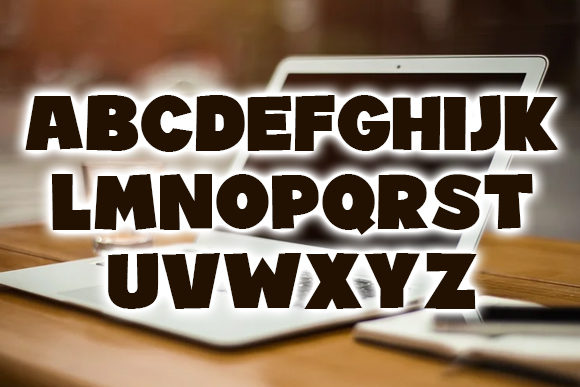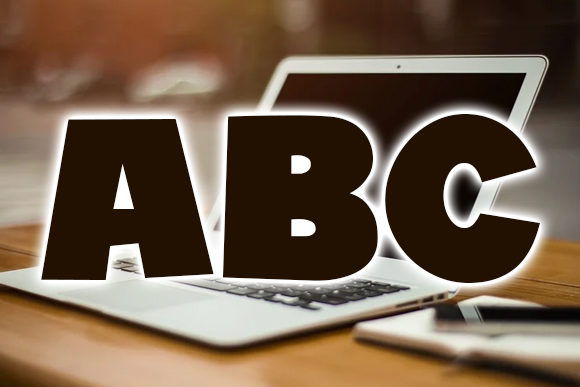
Introduction to Reset Font
Reset is a bold and simple display font.
Add this chunky lettered font to your designs and notice how it makes them come alive .
Key Features of Reset Font
Why Choose Reset Font?
Reset Font offers exceptional quality and versatility, making it a valuable addition to your design toolkit. Whether you’re creating for personal projects or commercial use, Reset Font delivers professional results.